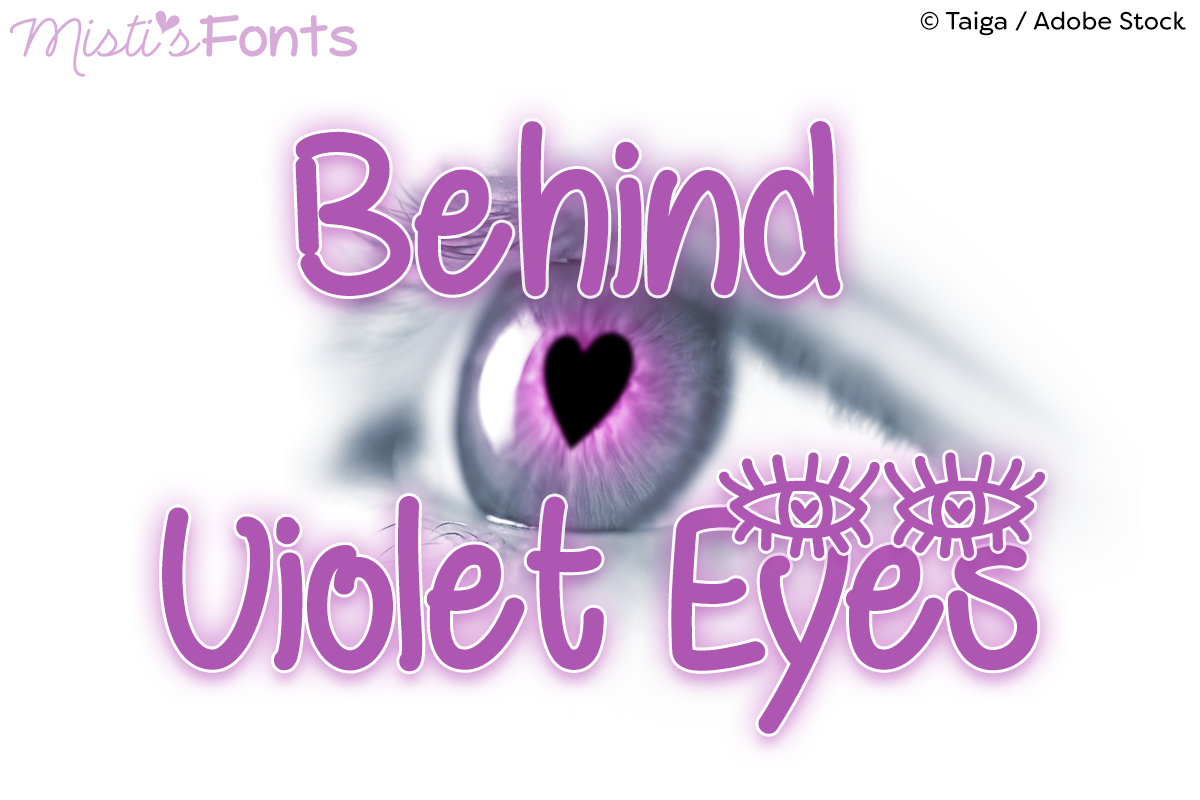
Behind Violet Eyes
Behind Violet Eyes is an eye-catching handwriting font that is perfect for a variety of projects!
SPECIAL SYMBOLSType * (asterisk) for the eyes